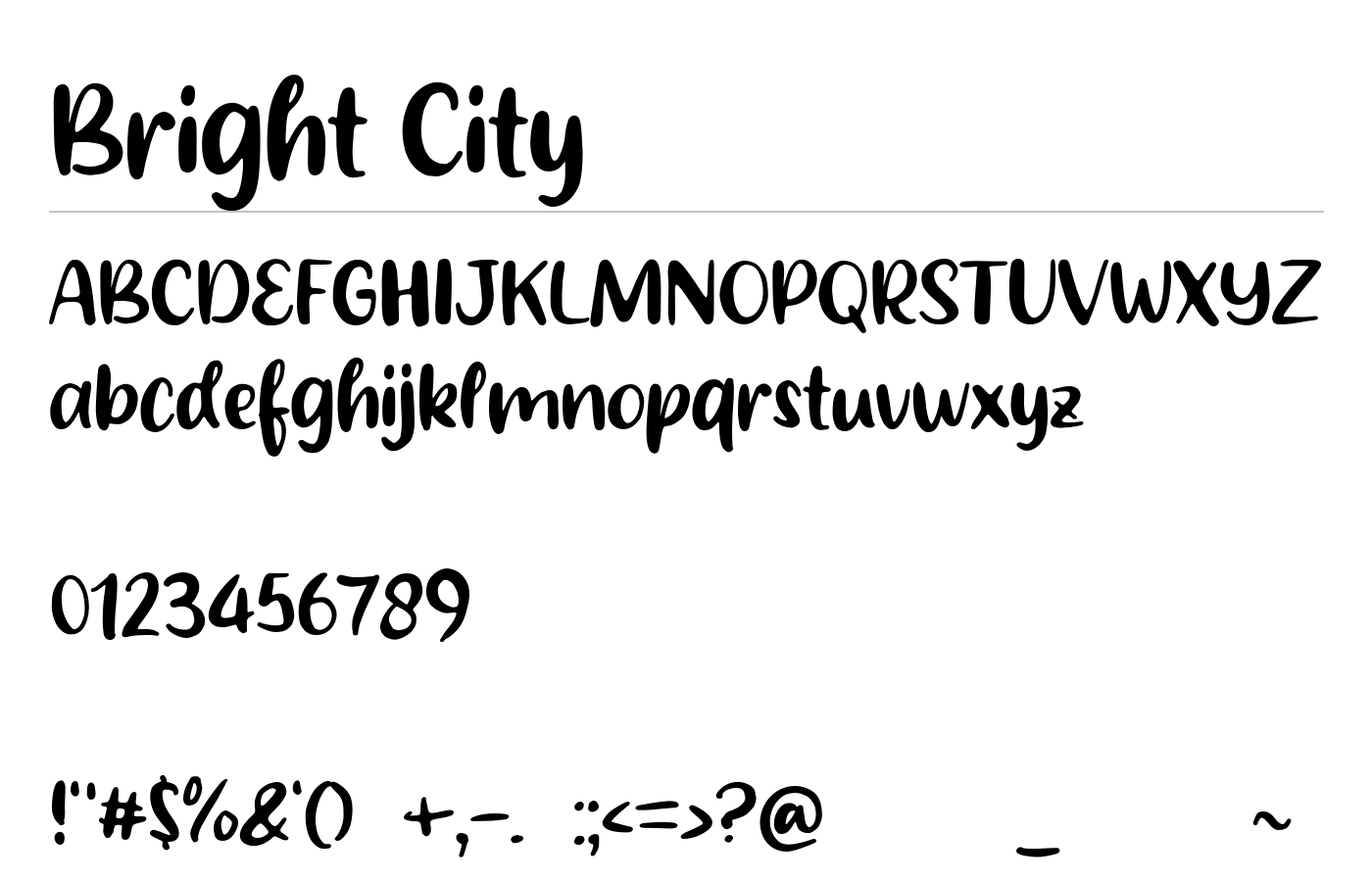
Bright City is a playful and friendly handwritten sans serif font characterized by its rounded, casual letterforms and consistent medium weight. It features a lively, informal style with a slightly tall x-height and smooth strokes, making it perfect for cheerful and approachable design projects. This font works well for children's books, creative branding, and social media graphics where a warm, personal touch is desired.
Bright City Font
About Bright City Font